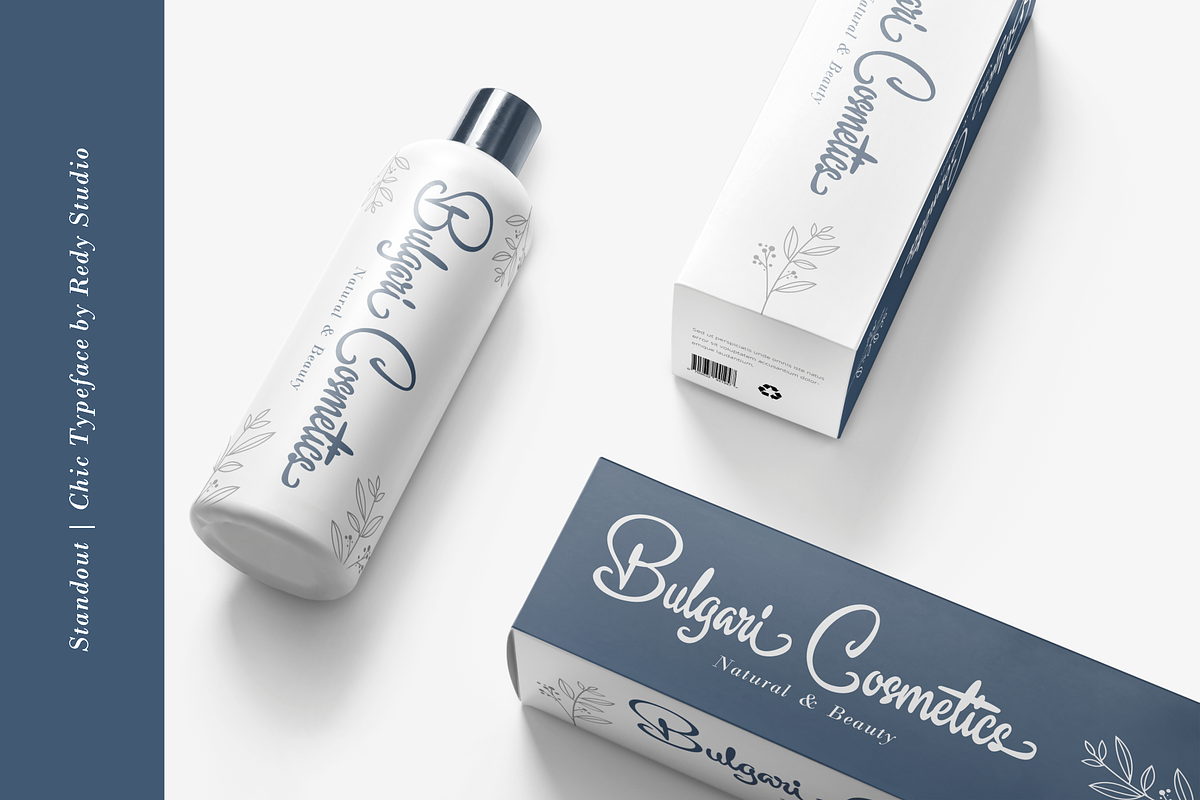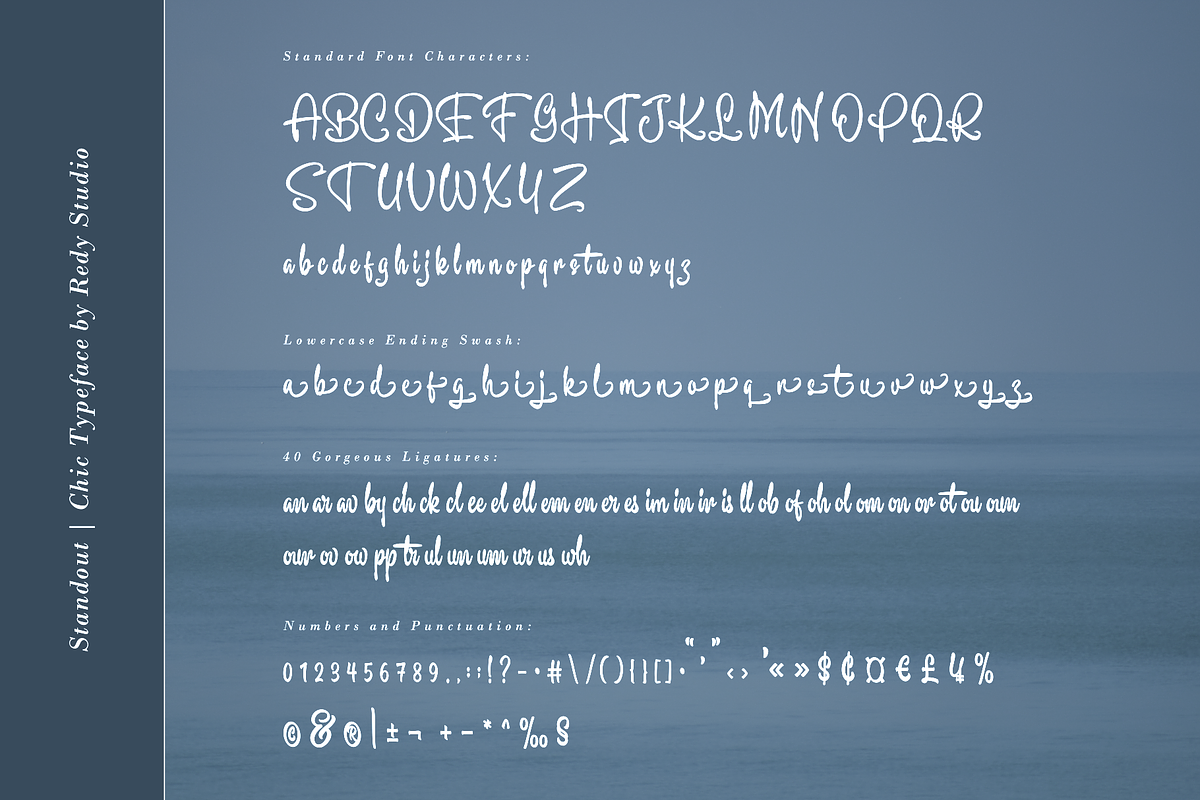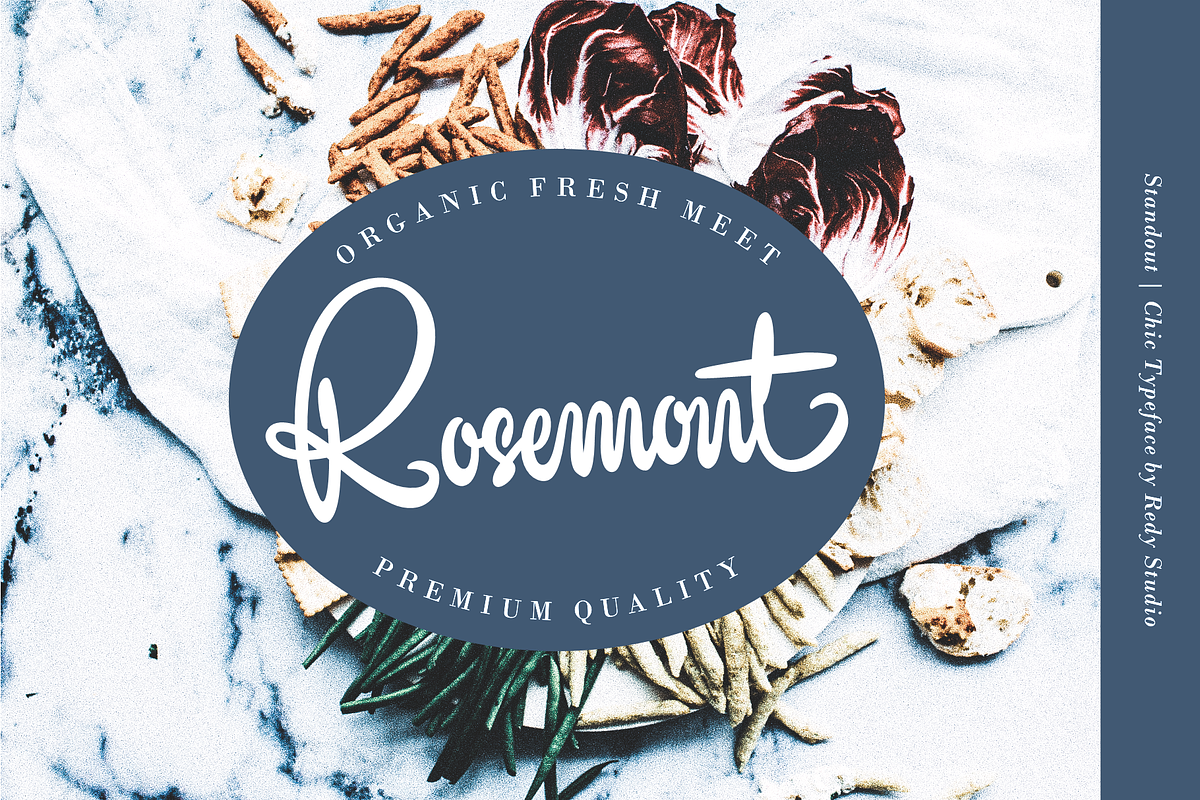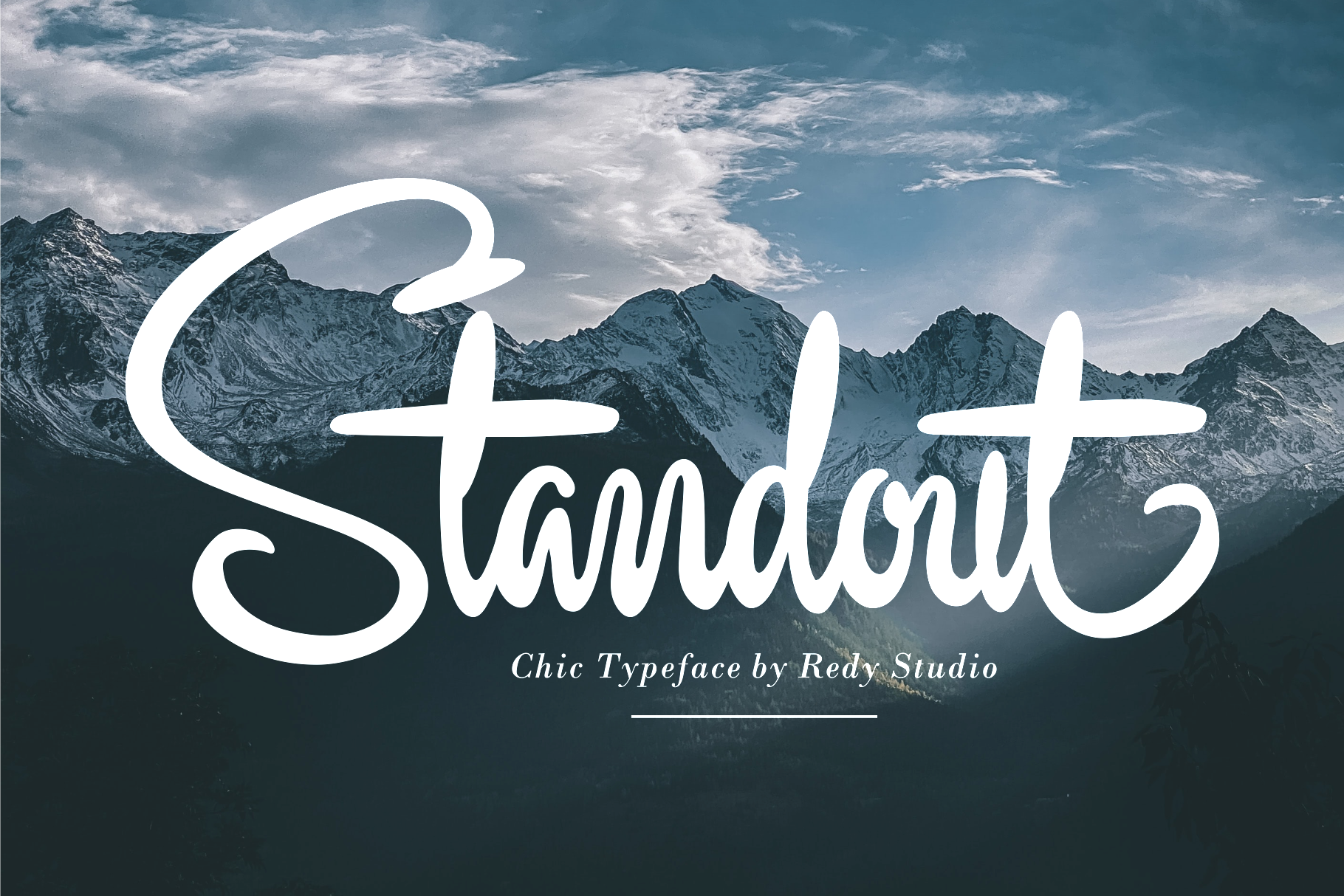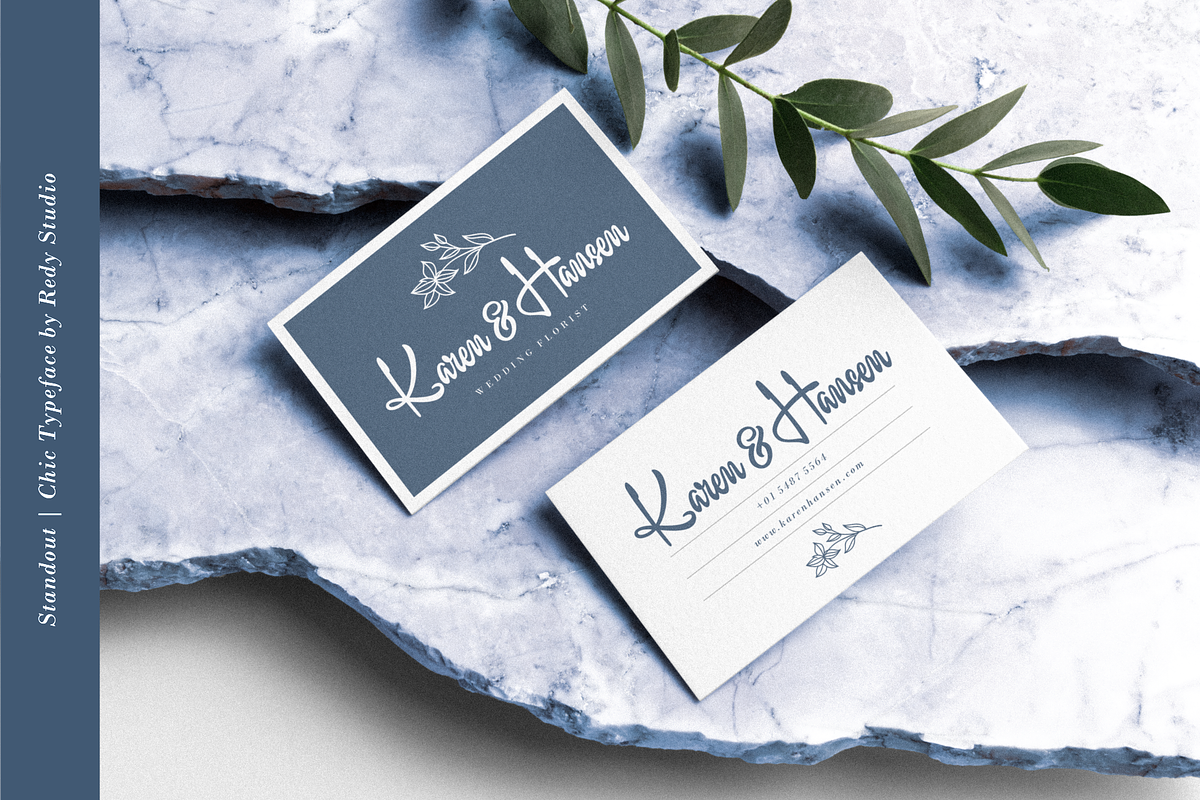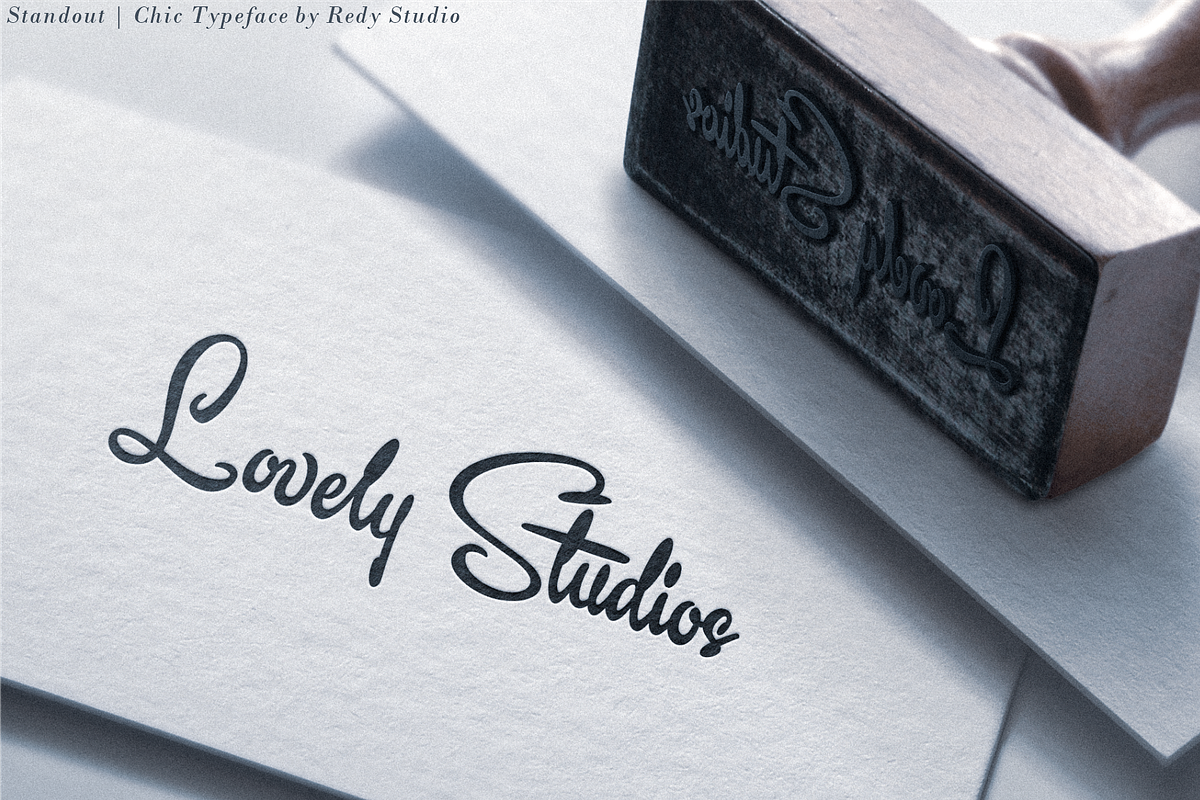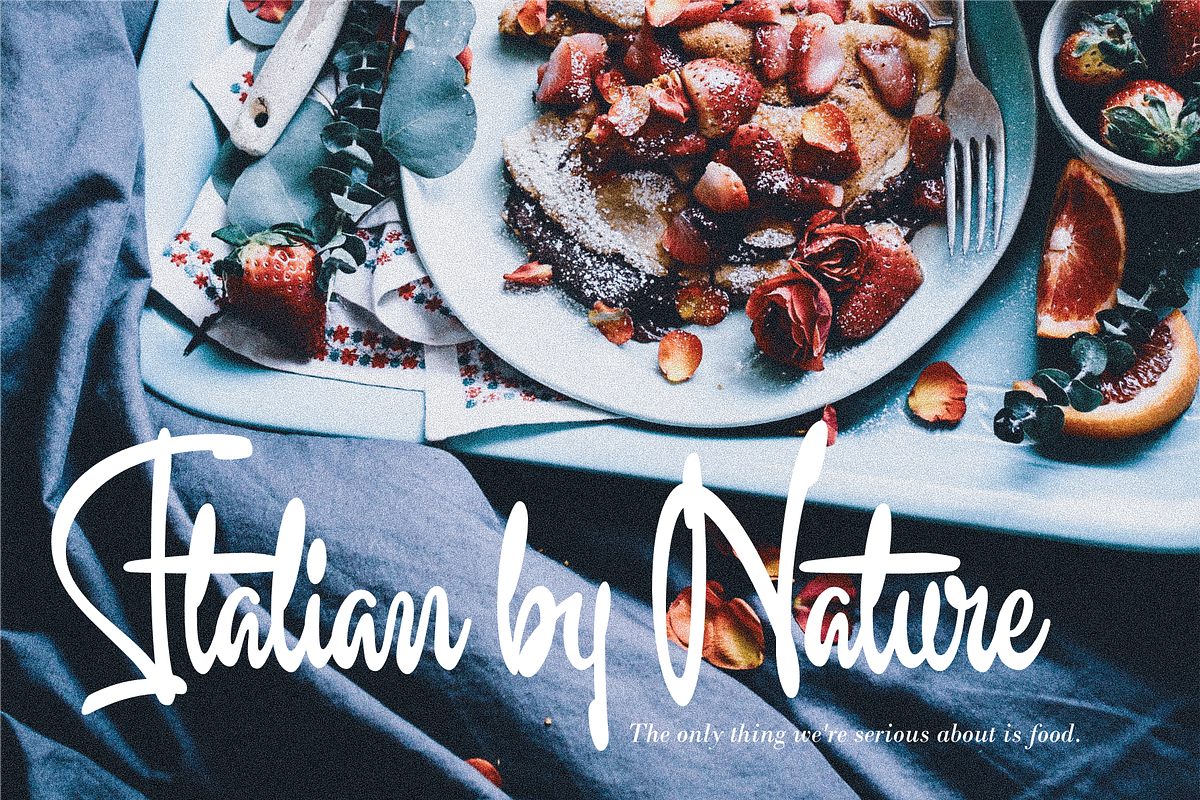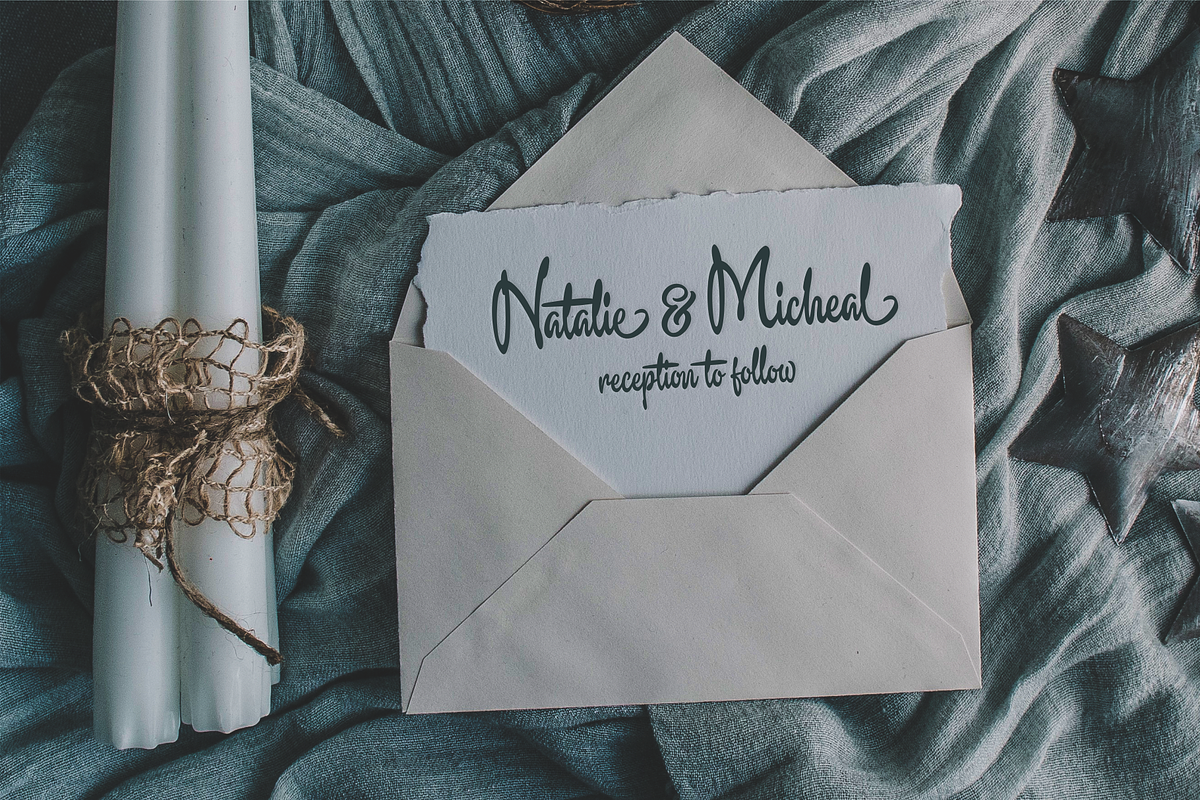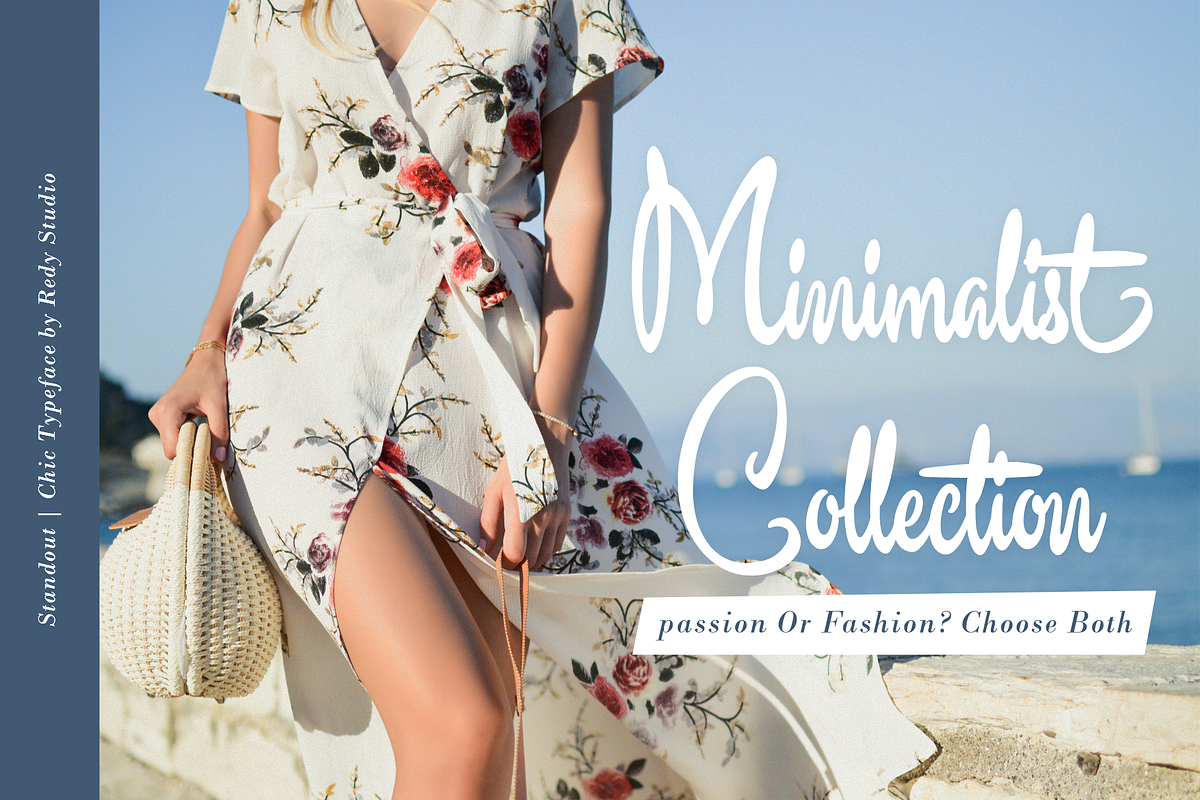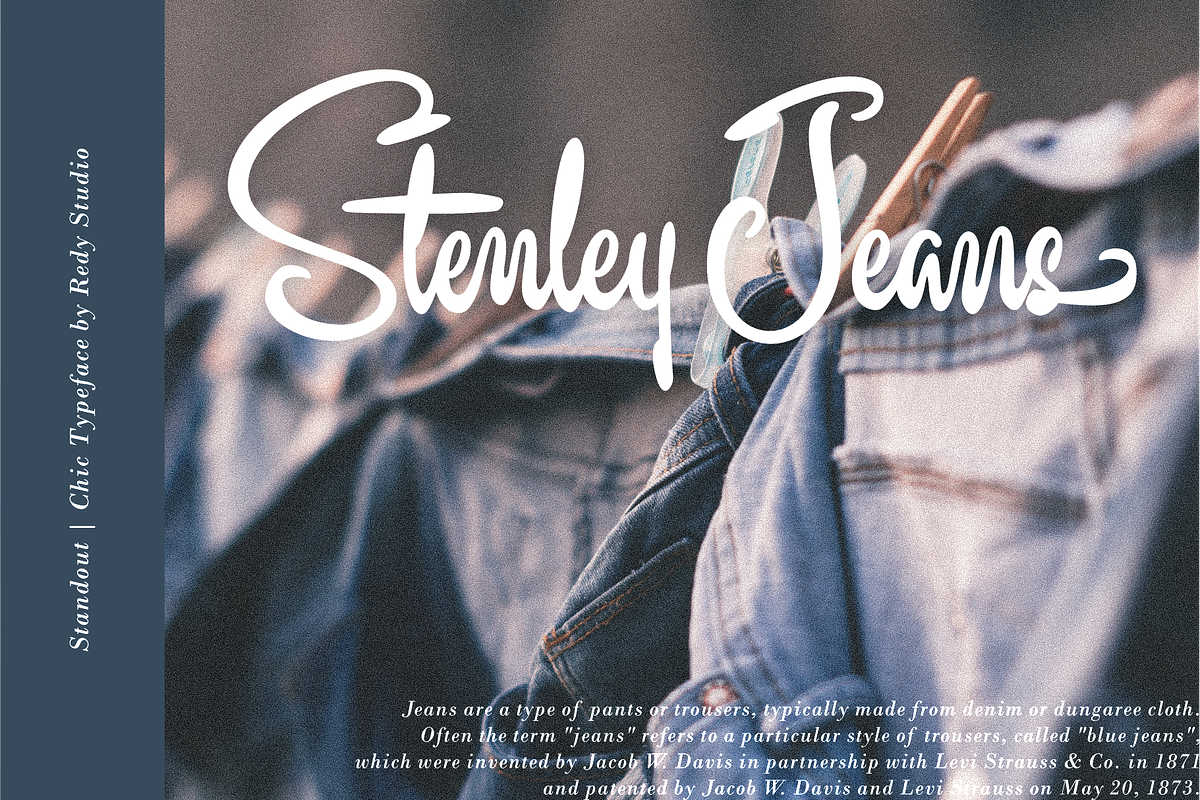
Standout – Chic Typeface
Standout is a bold script typeface combining stylish letterforms with a charming contemporary touch and is equipped with 40 gorgeous ligatures and a lowercase ending swash.
Standout Features:
- Uppercase,lowercase,numeral,punctuation & Symbol
- 40 gorgeous ligatures
- Lowercase ending swsh